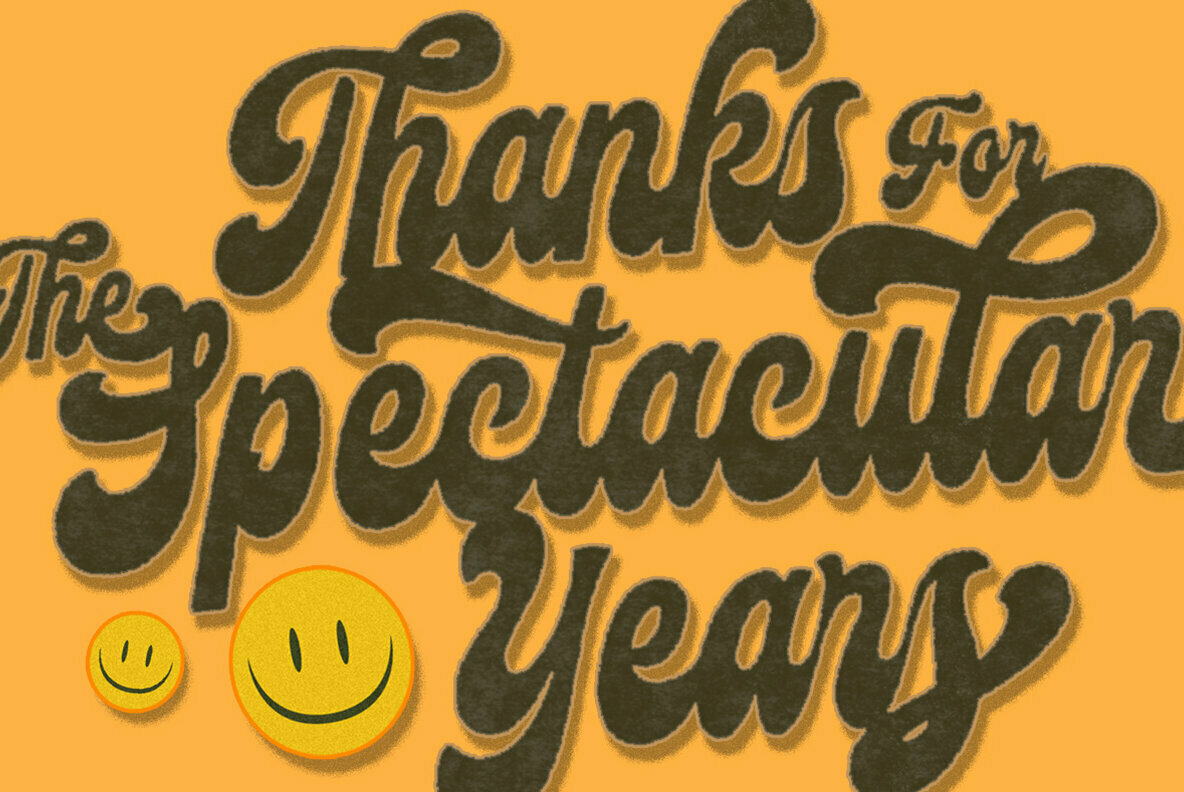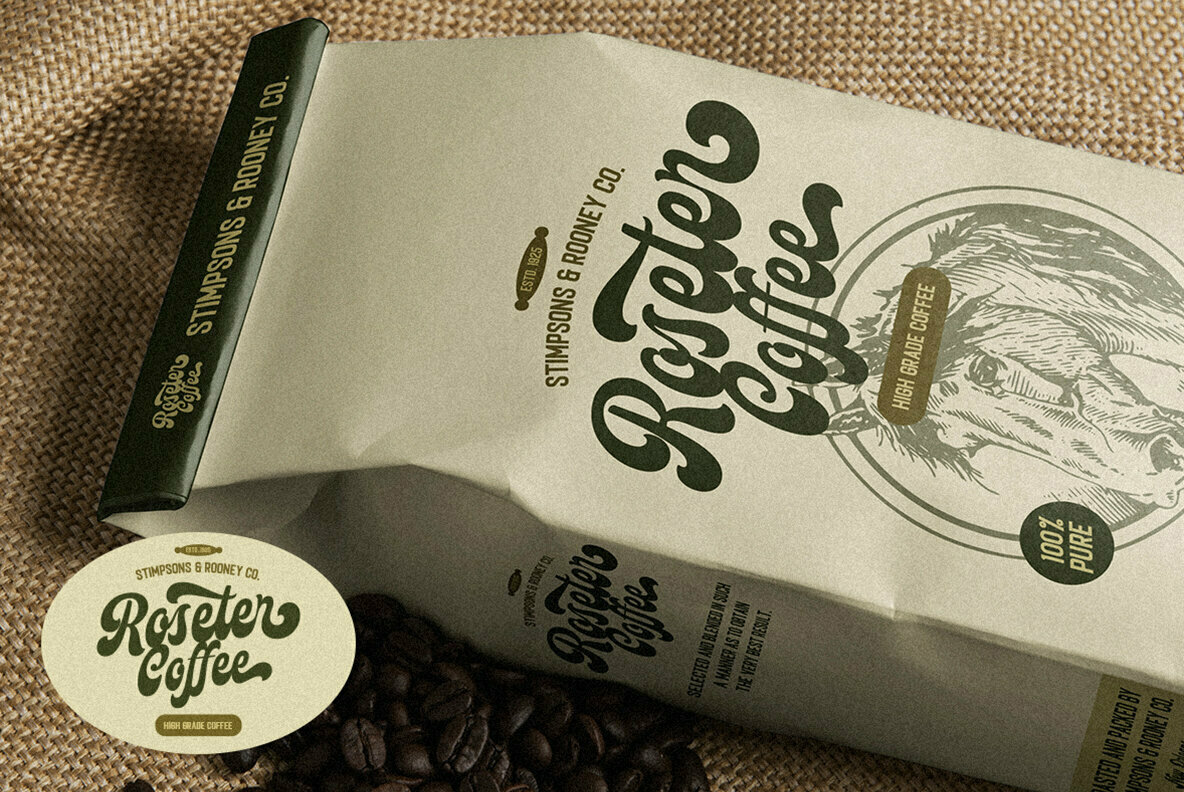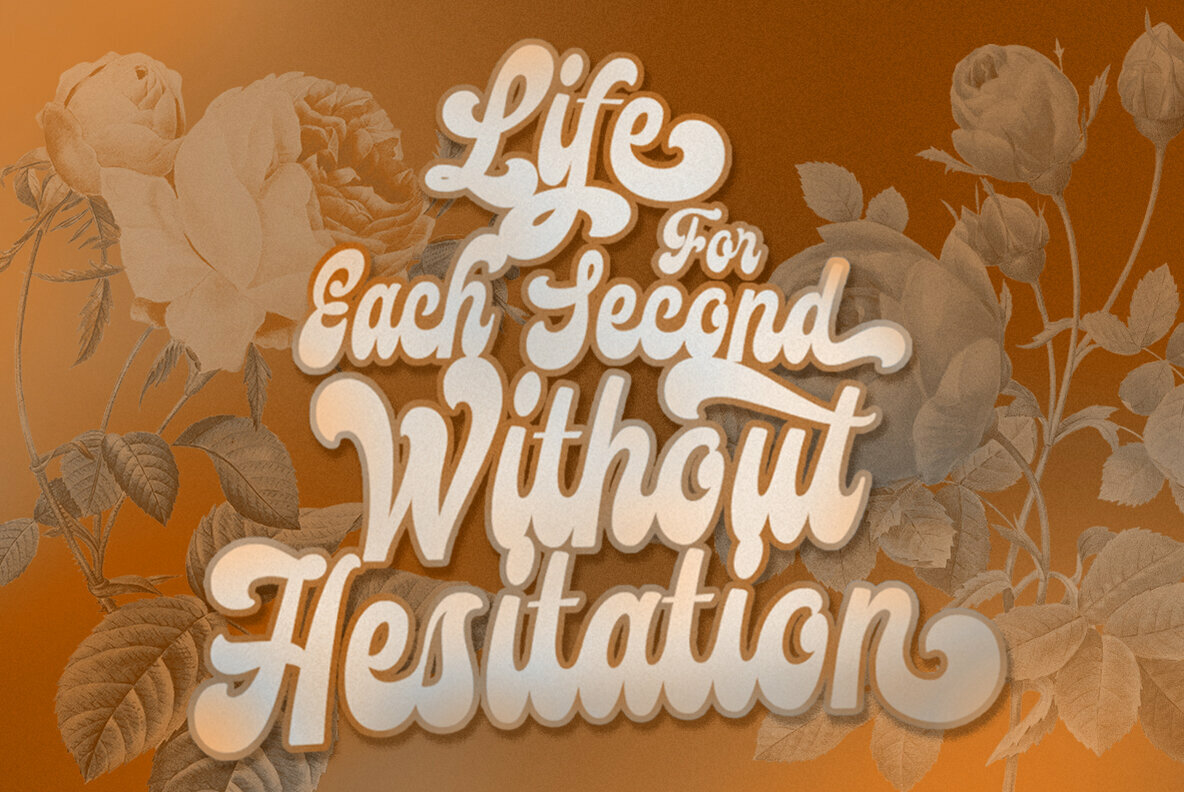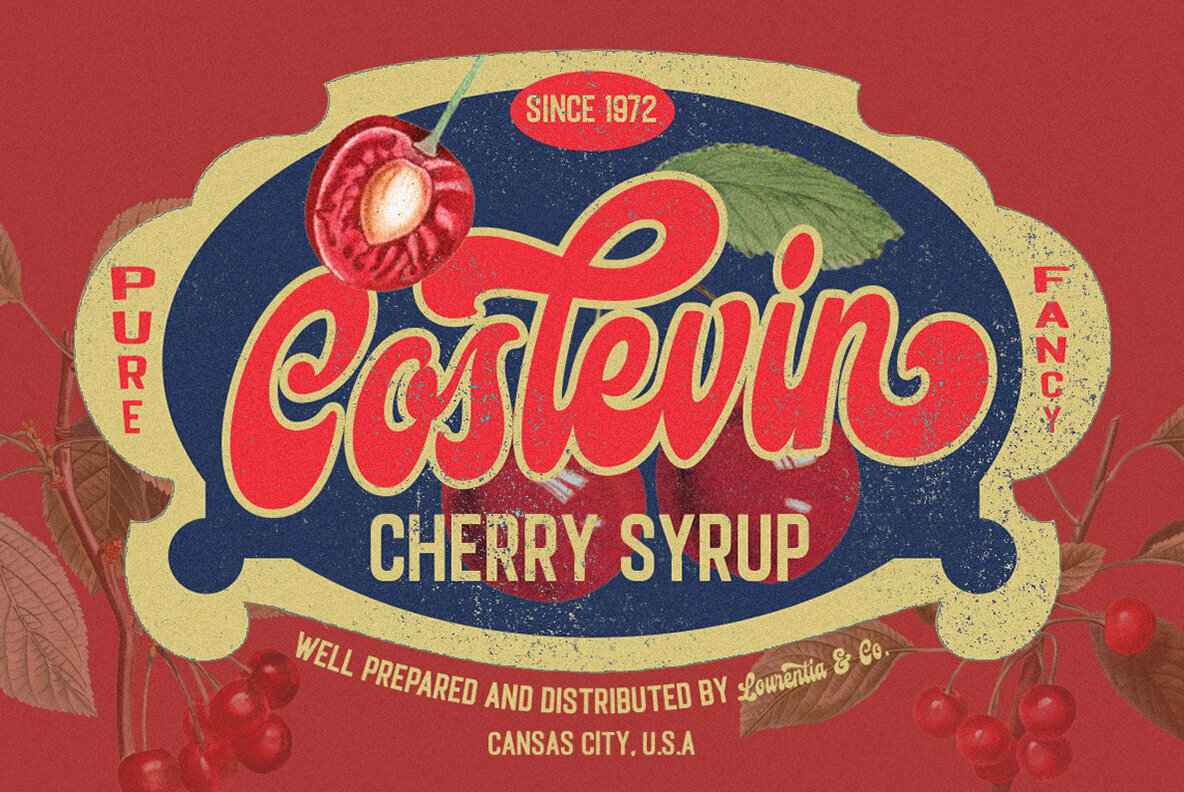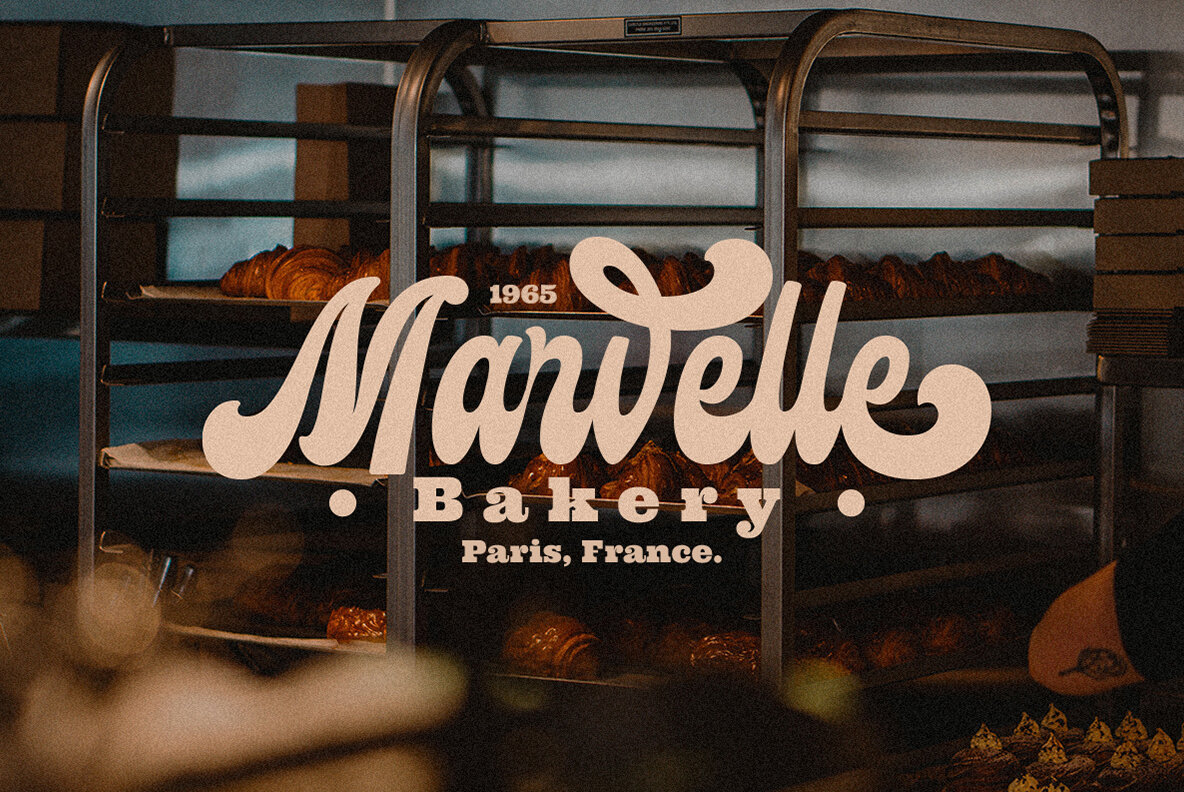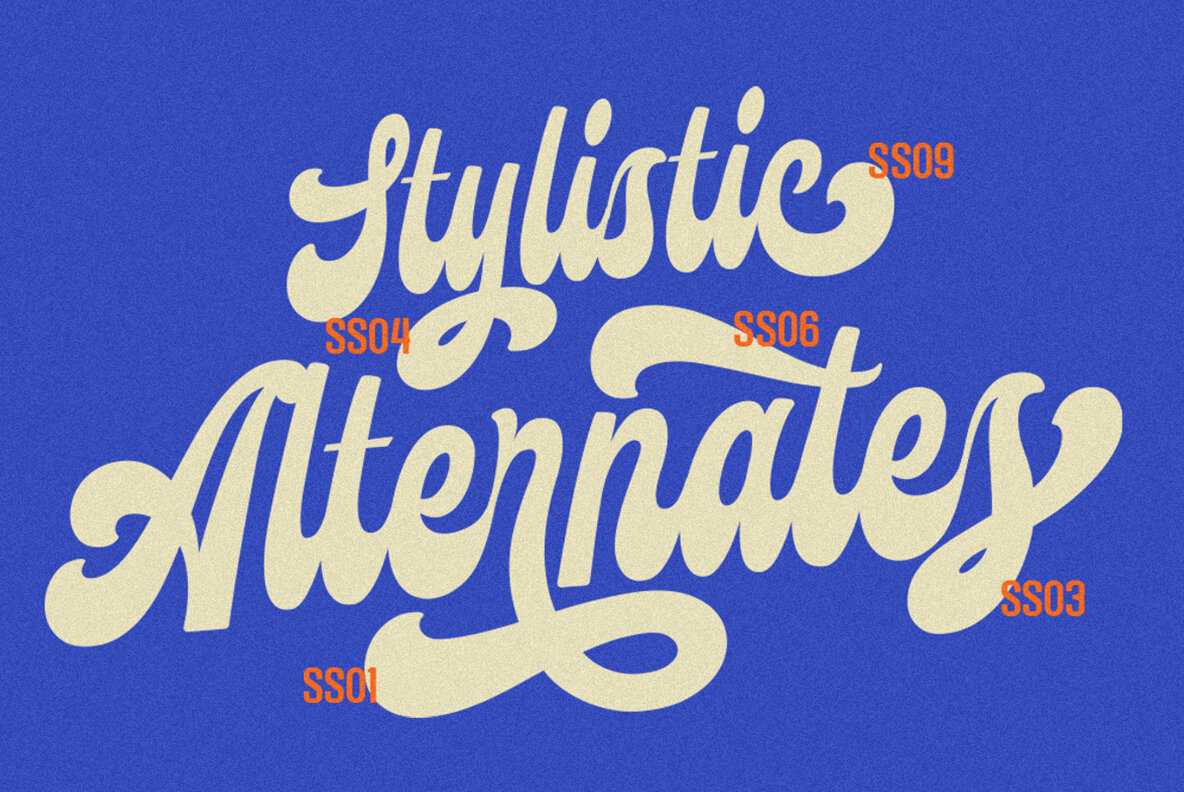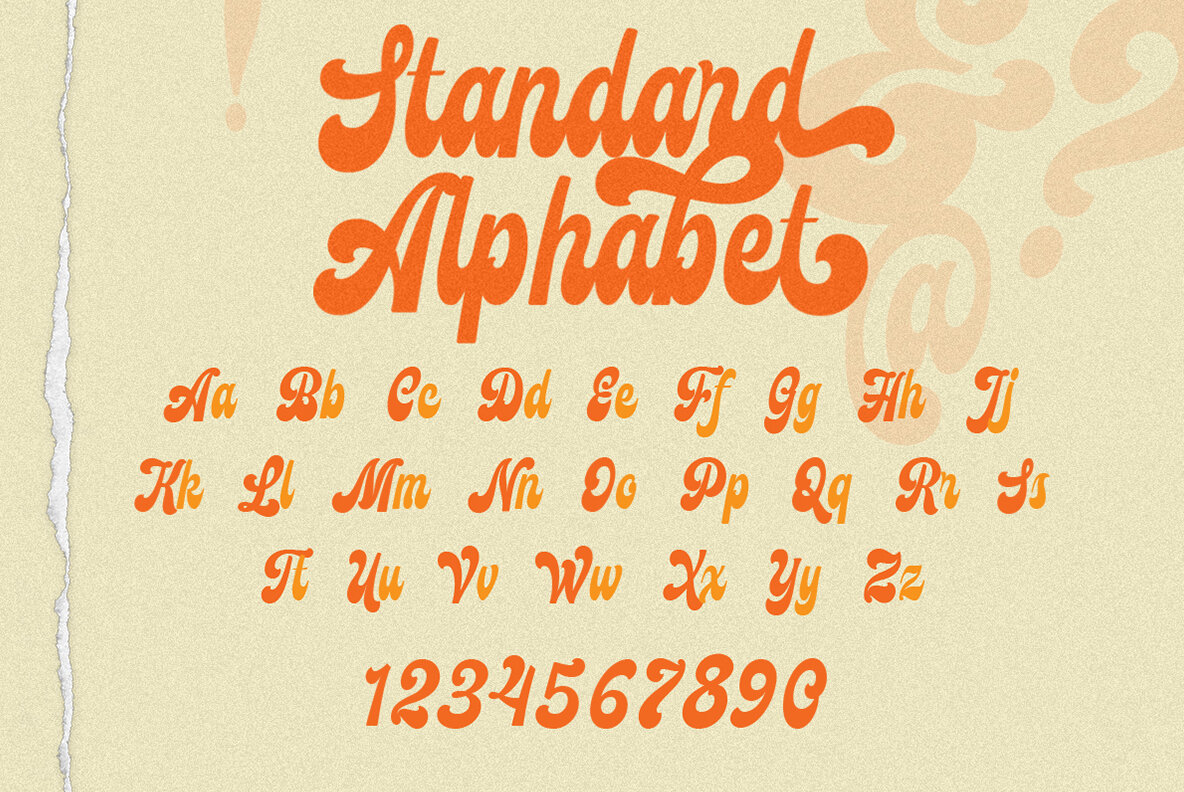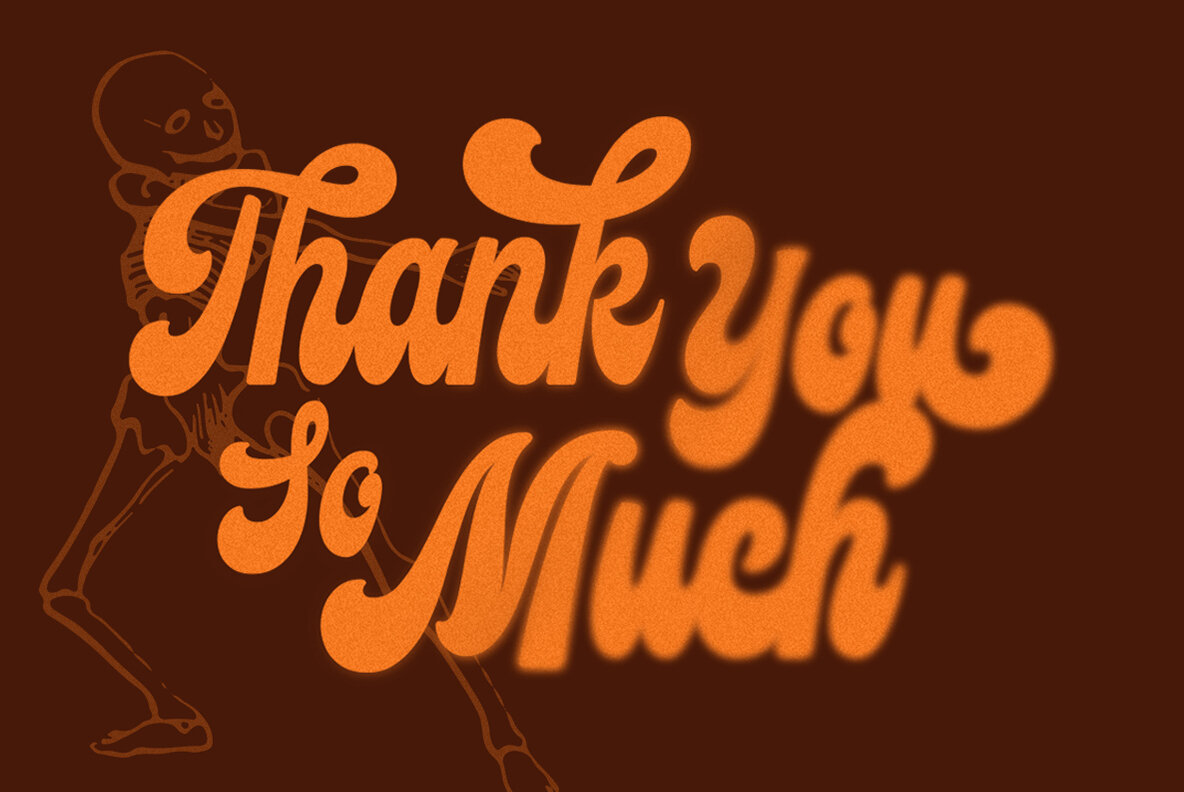
Mayburn Font
Mayburn Regular
Mayburn Script by Letterhend Studio captures the essence of bold sophistication intertwined with a retro flair. This script font is tailor-made for logos, invitations, labels, and a variety of formal formats, including magazines, books, and greeting or wedding cards. Its versatile character makes it suitable for packaging, fashion, makeup, stationery, novels, and advertising. For the best experience, use software that supports OpenType features and Glyphs panels, such as Adobe apps and Corel Draw, which allow access to all variations.Mayburn Script: Bold Elegance with Retro Charm